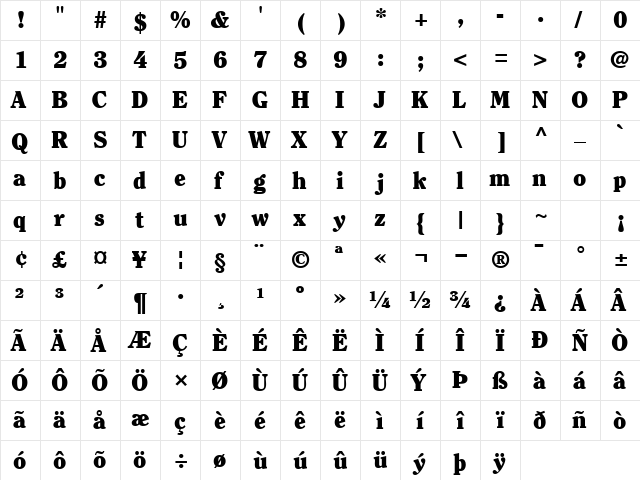
ClearfaceBlackSSK Regular
Design Context for ClearfaceBlackSSK Typeface
ClearfaceBlackSSK offers clean, dependable letterforms without strong stylistic allegiance, making it a practical choice for designers who need flexibility.
Pro Tip: Use ClearfaceBlackSSK in both headline and body roles to test its range before committing to a single application.